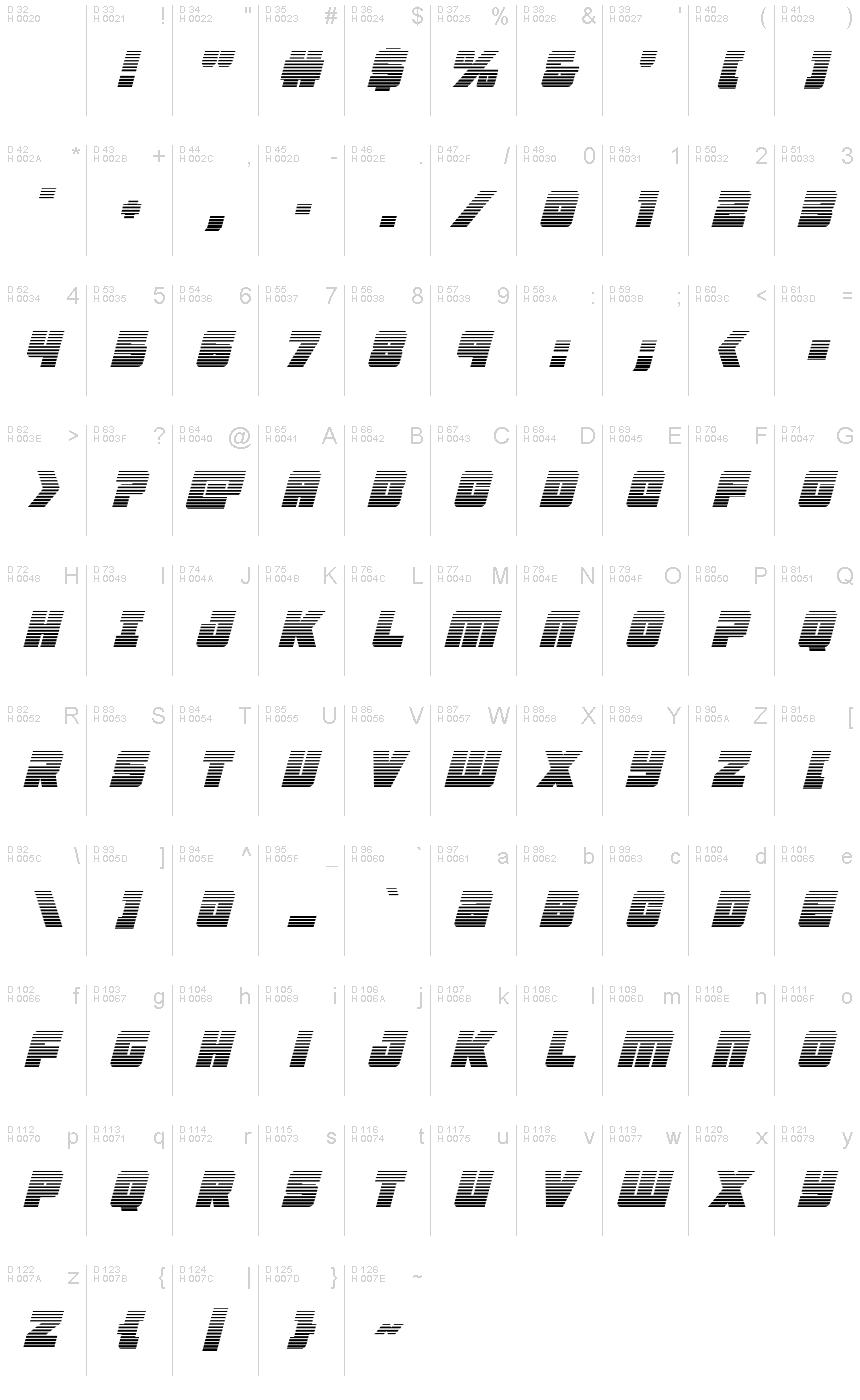
4ce Gradient Italic
4ce Gradient Italic is the perfect techno display font for those seeking a bold and futuristic design. Its extra-bold weight and expanded width make it stand out in any project, from website headers to product packaging. The gradient effect adds depth and dimension, while the italic style adds a touch of elegance. This font is ideal for futuristic-themed projects such as science-fiction book covers or gaming logos. It can also be used in tech-related branding or advertising campaigns to convey a cutting-edge image. Stand out with 4ce Gradient Italic and take your designs to the next level.